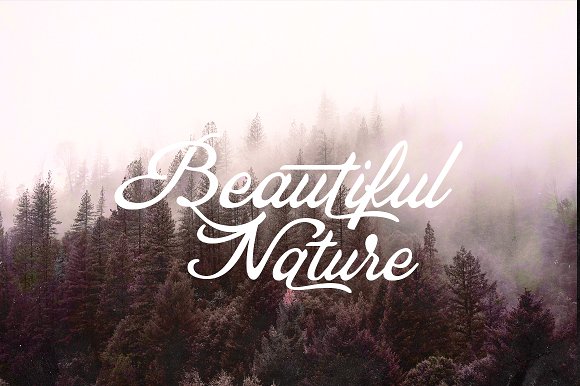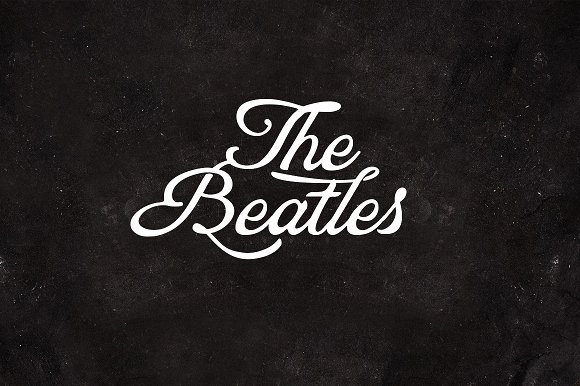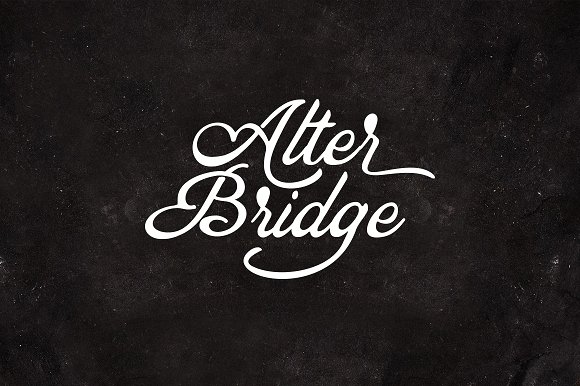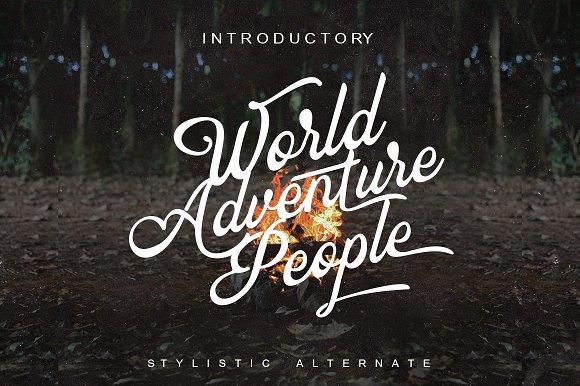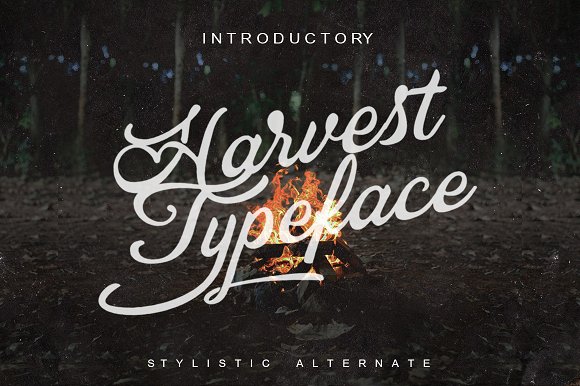
Harvest Typeface
INTRODUCING Presents our product Harvest typeface is vintage style with alternate stylistic. The font will great for product logo,wedding card logo, clothing brand logo,Vintage design and much more